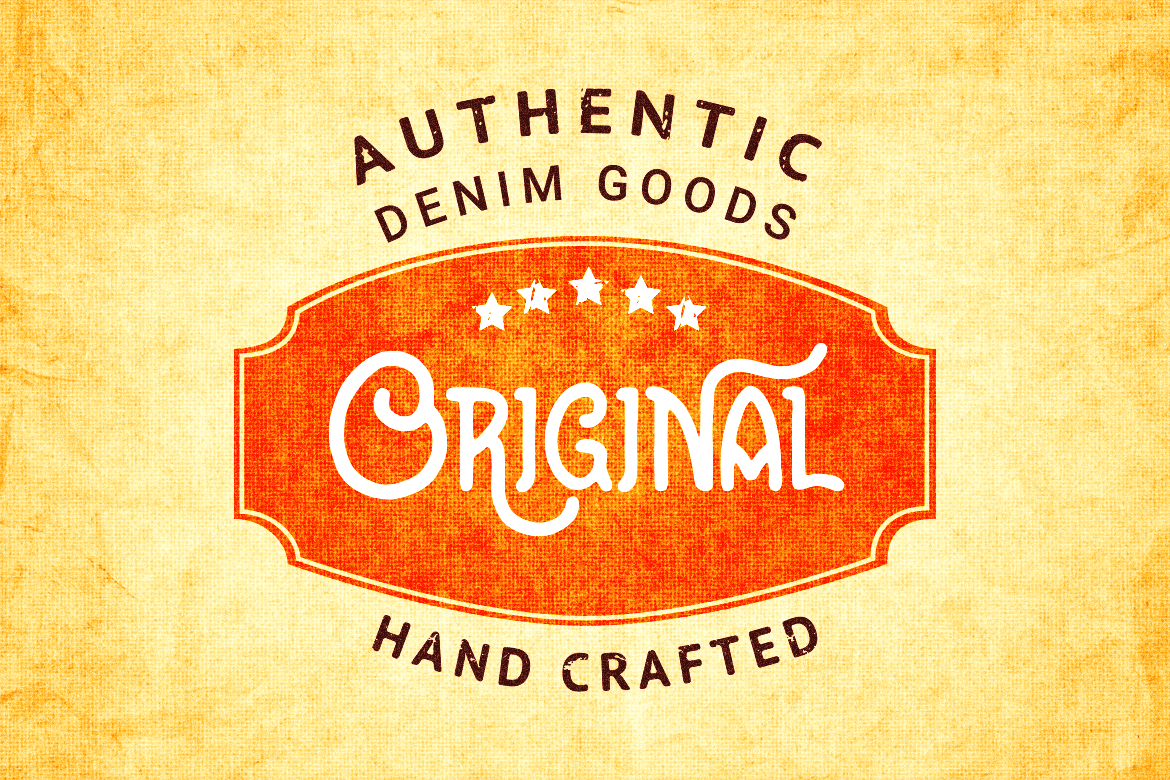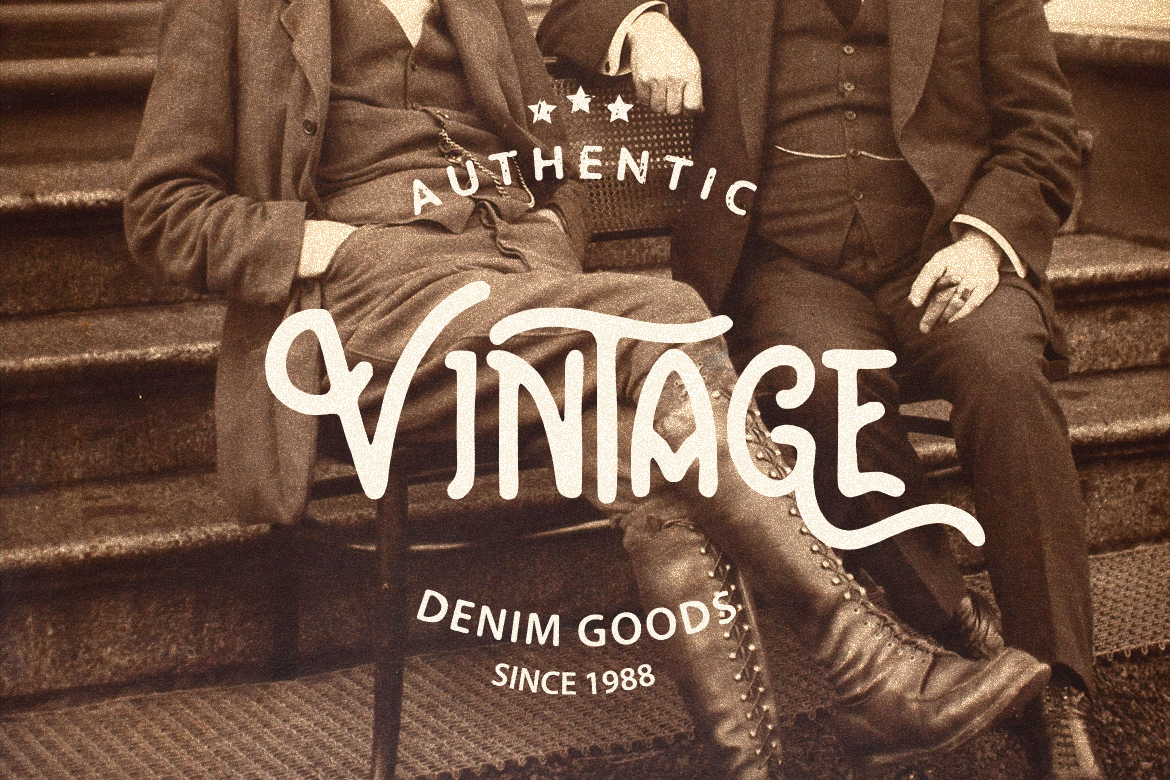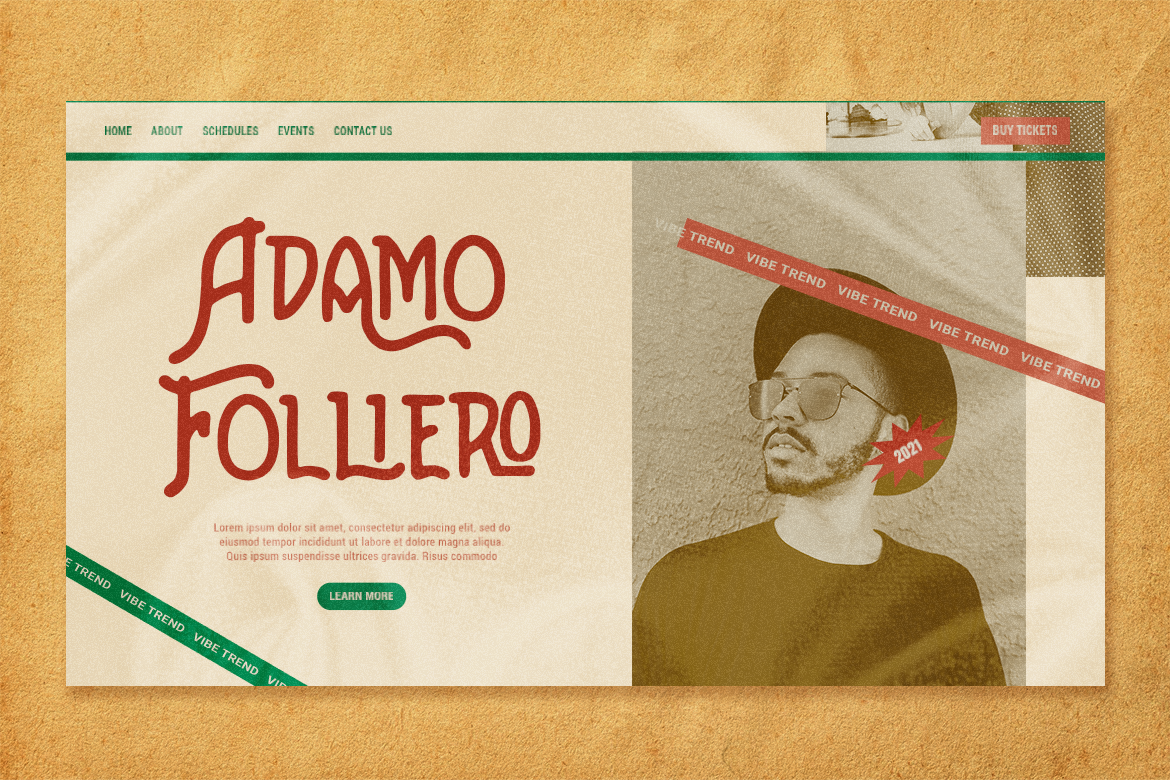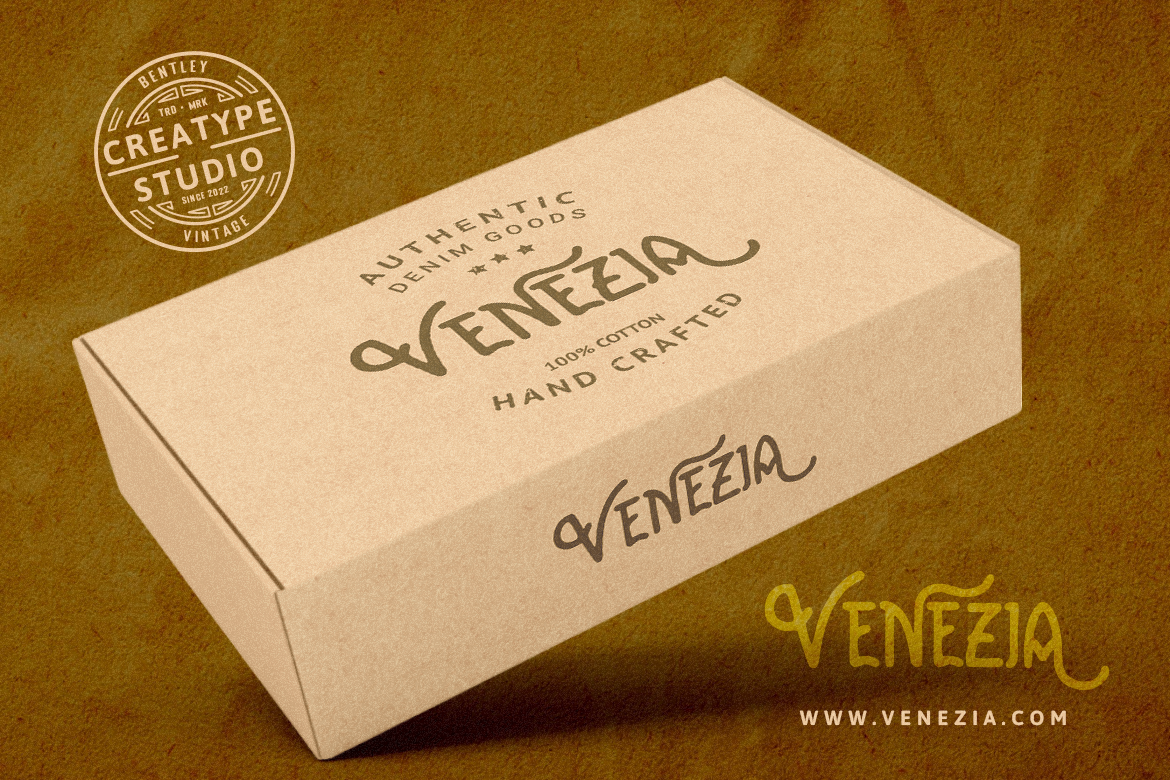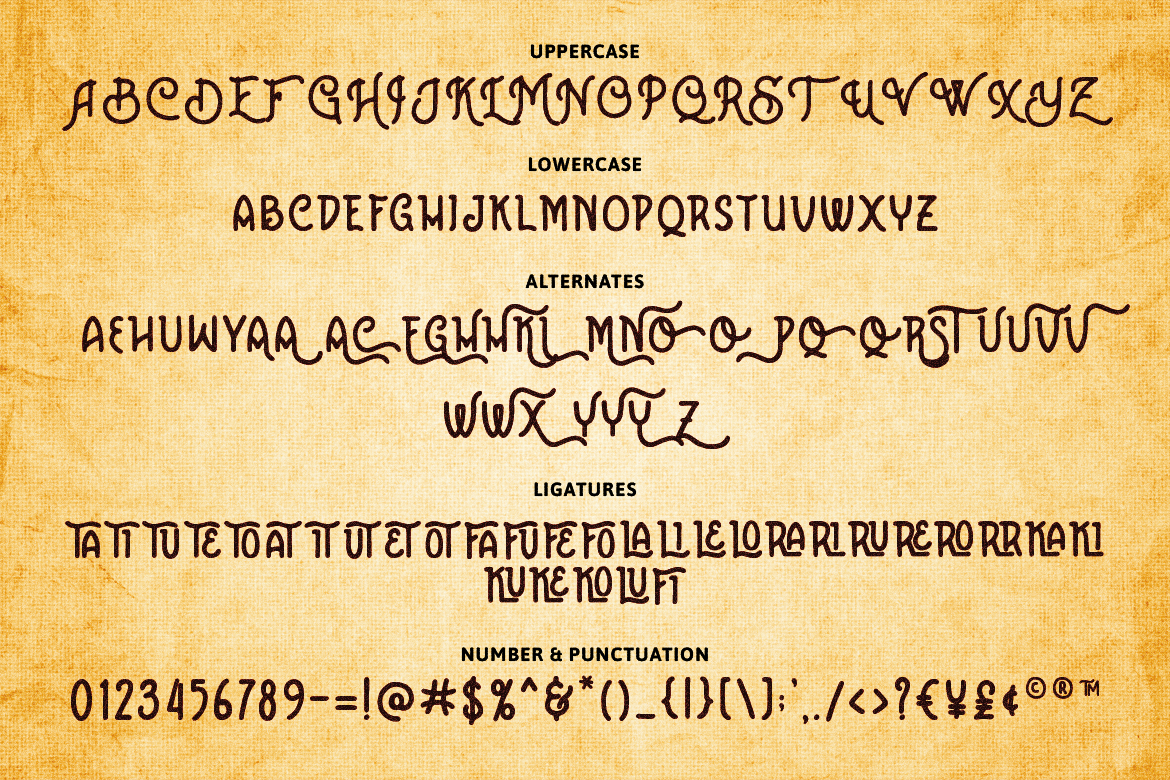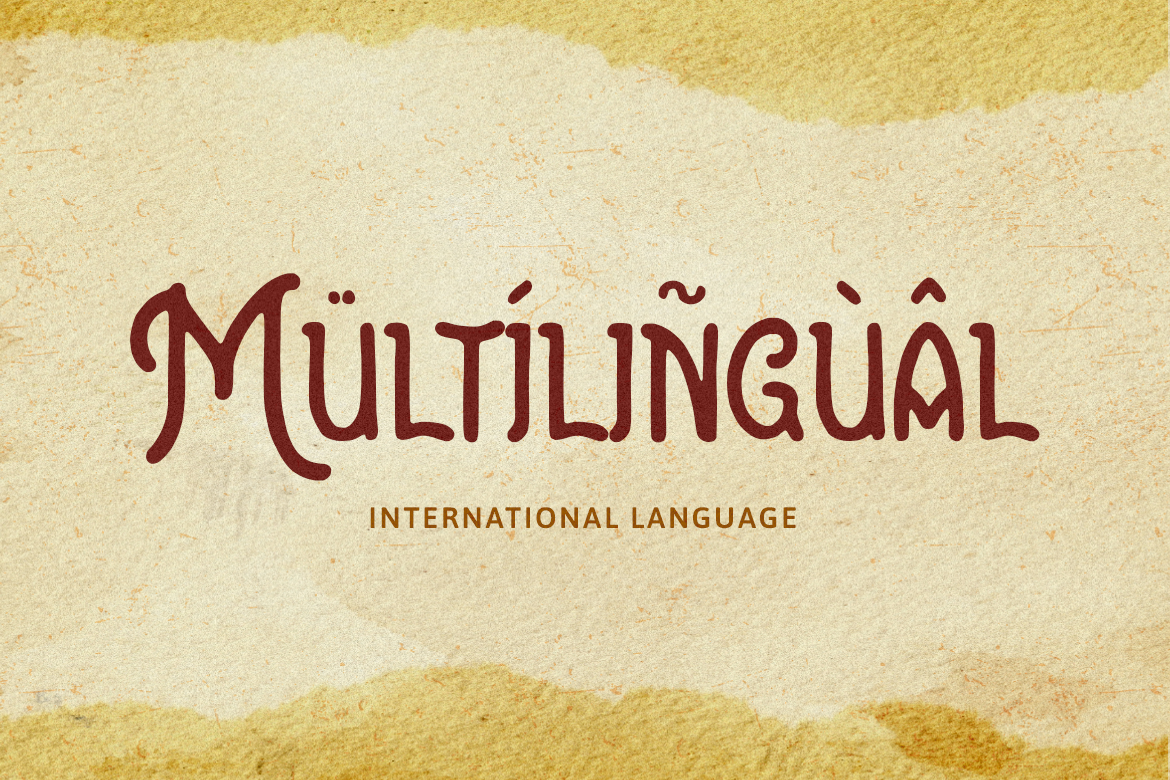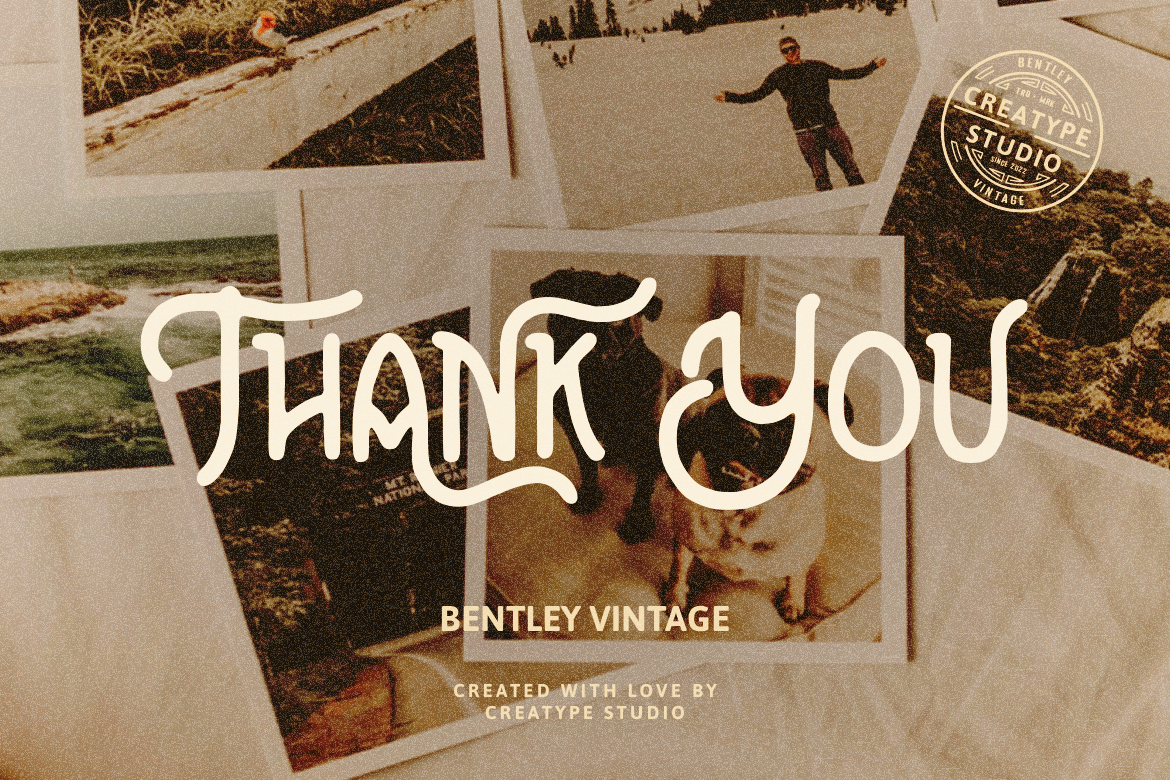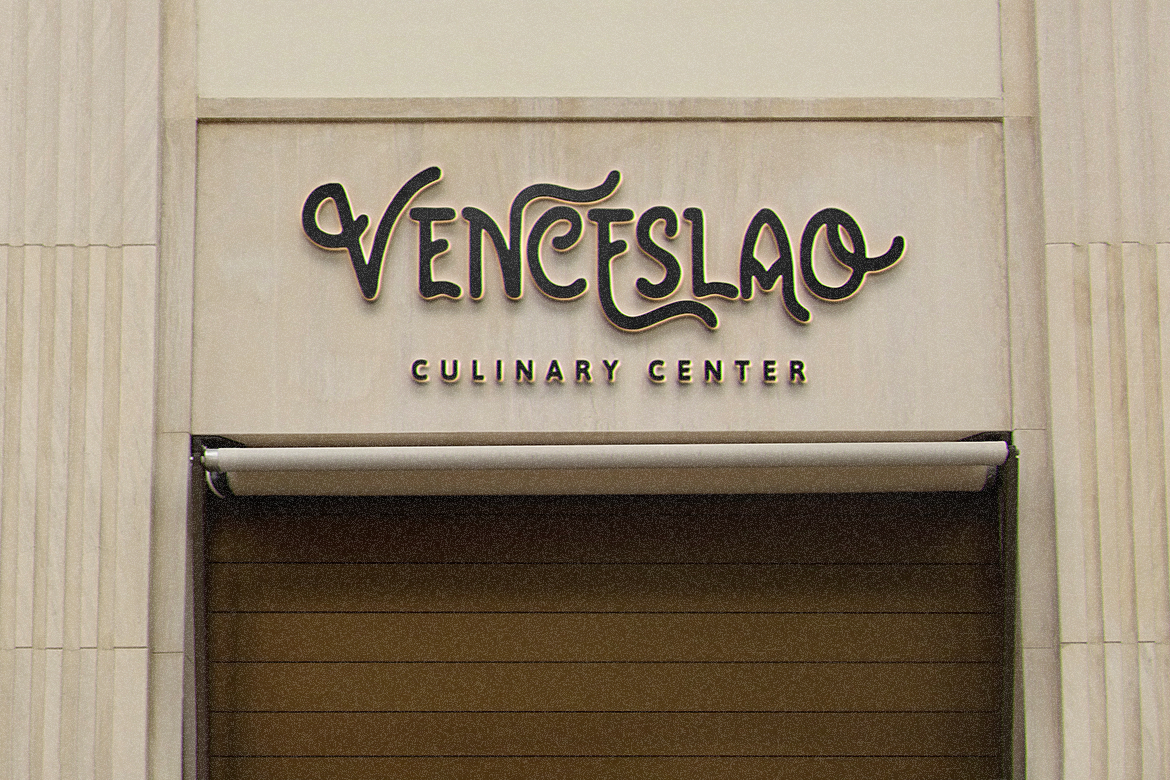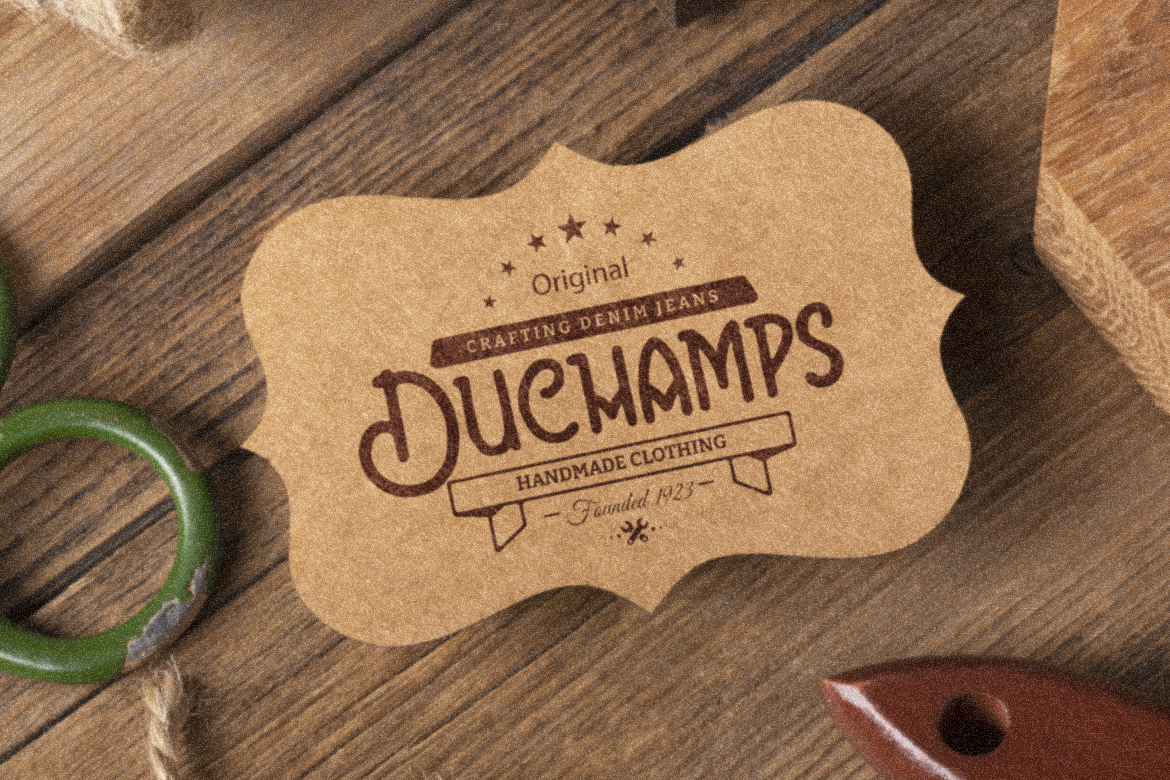
Bentley is a monoline vintage with a bold and strong aura on every character. The versatile looks from Bentley are perfect for radiating your project’s vintage vibe.
Bentley is perfect for branding projects, logo, wedding designs, social media posts, advertisements, product packaging, product designs, label, photography, watermark, invitation, stationery and any projects that need handwriting taste.
Bentley Monoline Vintage